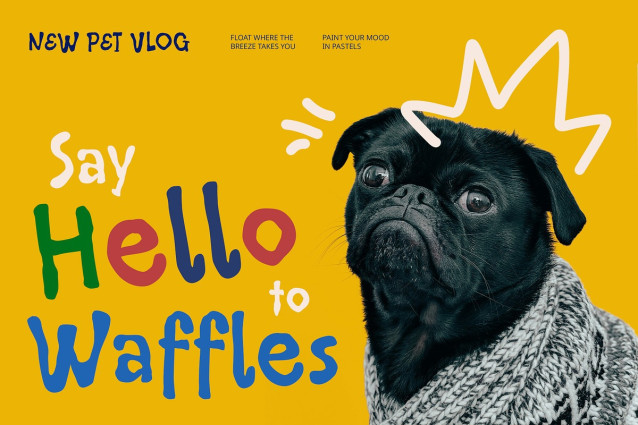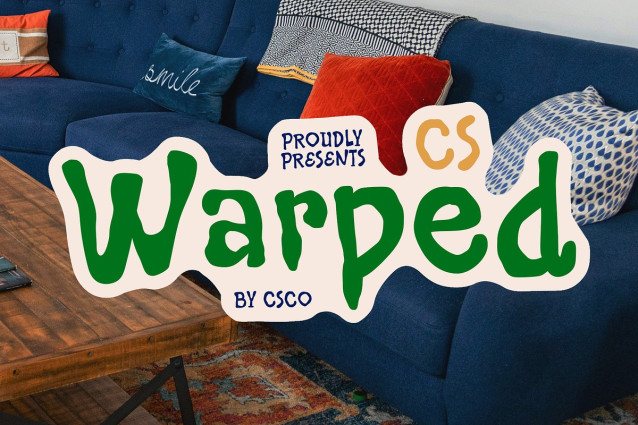
CS Warped Font
CS Warped is a bold, etched display font featuring playful, hand-drawn letterforms and thick strokes. Its quirky, funky style adds a sense of fun and creativity to any design. The etched details give it a unique texture, making it stand out and adding an artistic touch to every project.
Fun and Engaging for Children’s Book Designs With its cute and engaging design, CS Warped is the perfect choice for children’s book covers, titles, and illustrations. Its playful letterforms and bold strokes create a welcoming and fun atmosphere that will appeal to young readers.
Creative Layouts for Youth-Oriented Projects Beyond children’s books, CS Warped is a versatile font for various youth-oriented designs. Its bold, etched strokes and lively style make it suitable for posters, packaging, and branding aimed at a younger demographic. It creates an inviting, playful feel, perfect for products or projects targeting kids and young adults.
Unique, Fun, and Perfect for Playful Designs CS Warped stands out with its fun, hand-drawn aesthetic and bold etching. Its playful personality and chunky, youthful forms make it ideal for creative projects that need to convey energy, humor, and a sense of adventure. From kids’ designs to whimsical branding, CS Warped injects character and creativity.